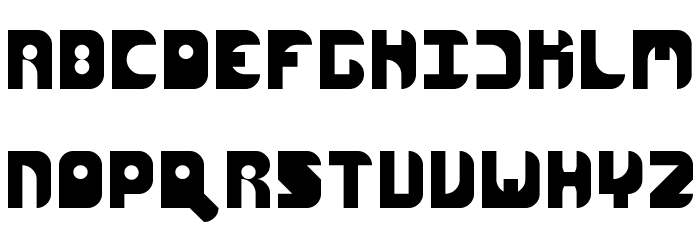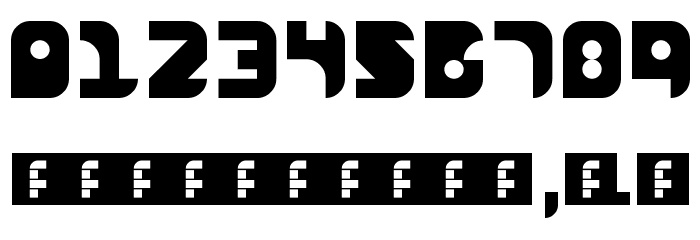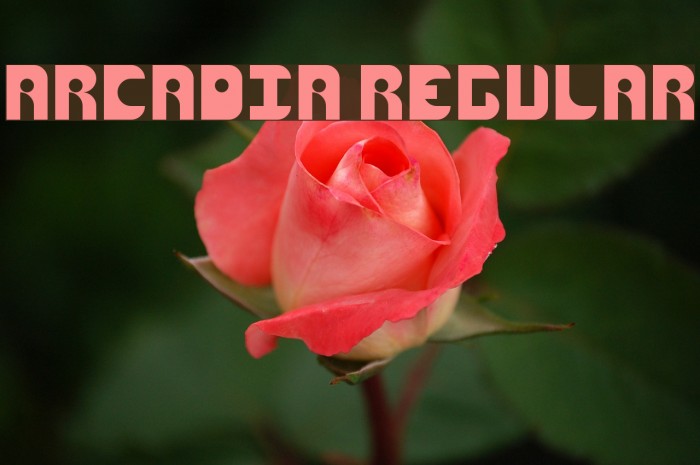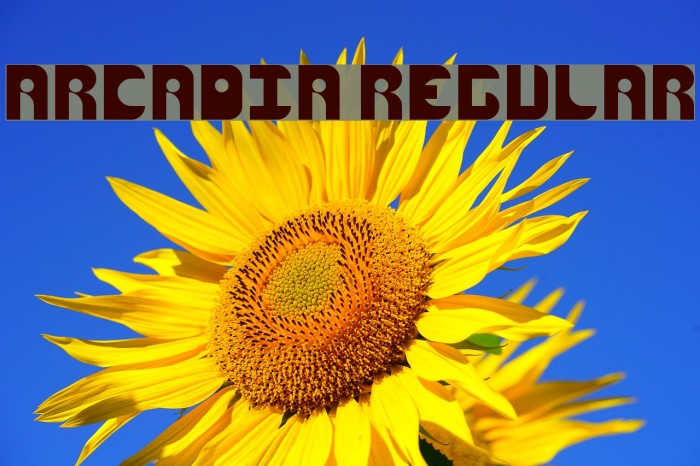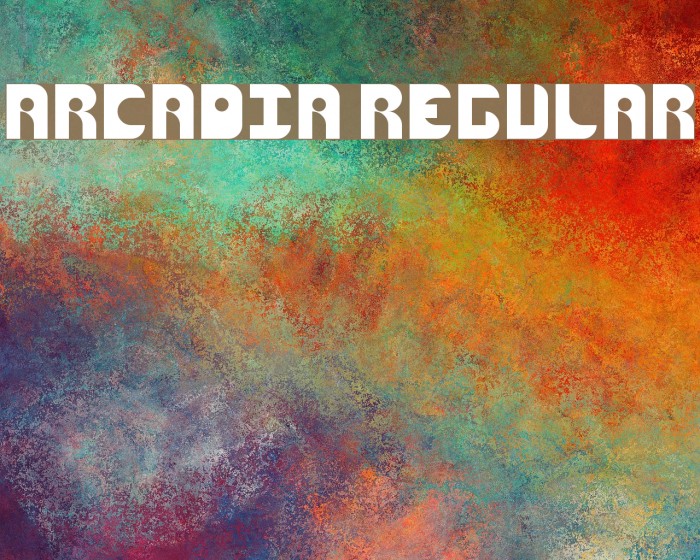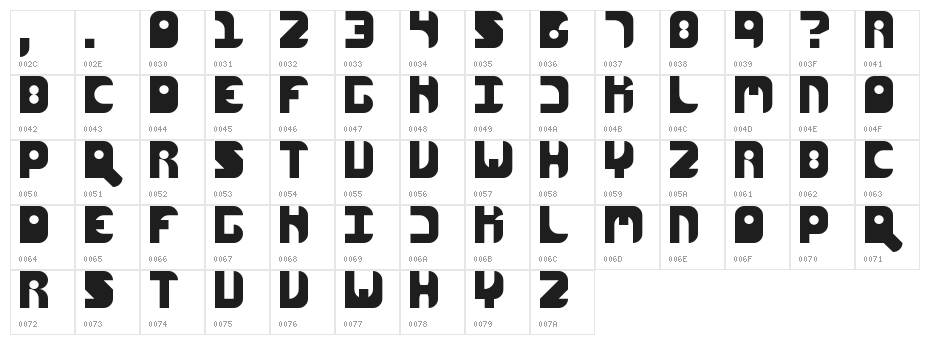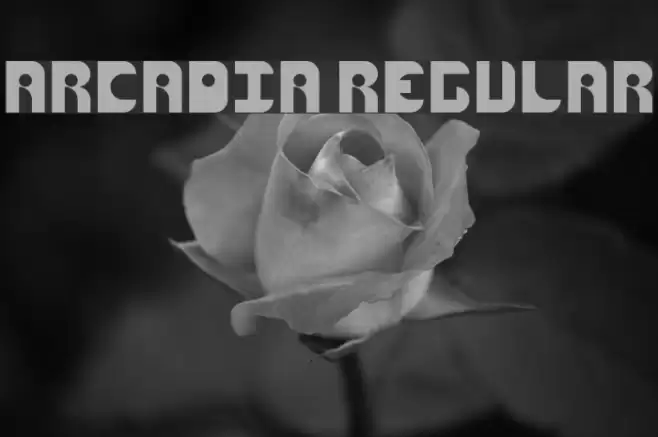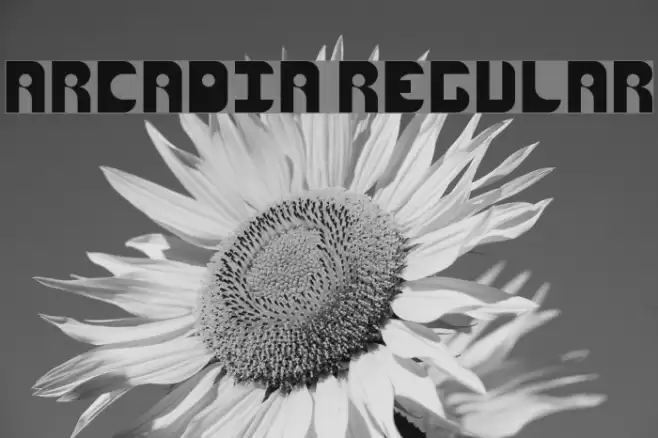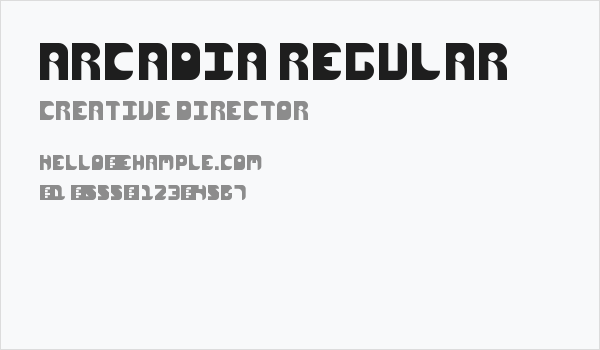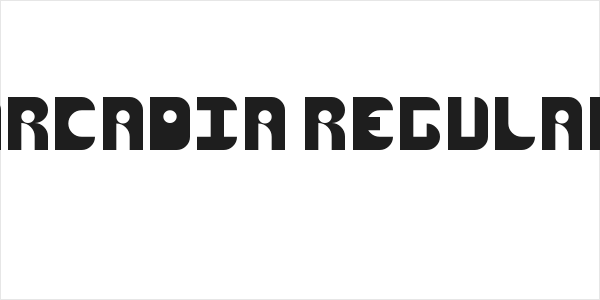
Arcadia Regular Font
This font features a bold, geometric design with a futuristic and modern aesthetic. The characters are constructed with thick, uniform strokes, creating a strong visual impact. The letterforms are blocky and angular, with a distinctive cut-out style that adds a unique touch to the overall appearance. The uppercase and lowercase letters maintain a consistent style, while the numerals and special characters complement the bold design. This font is ideal for projects that require a striking and contemporary look.
A bold, geometric font with a futuristic and modern aesthetic.
- Proposed Projects: Ideal for branding, posters, headlines, and any design requiring a strong visual impact.